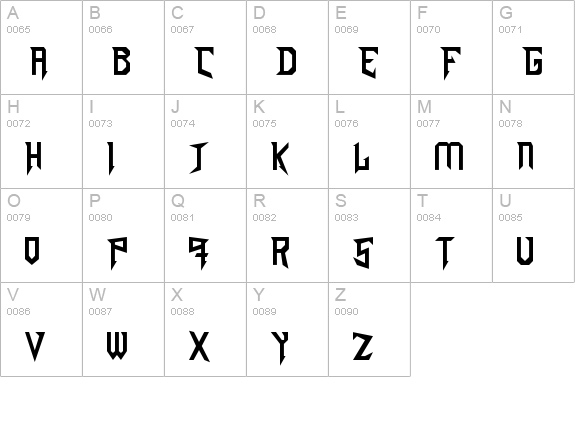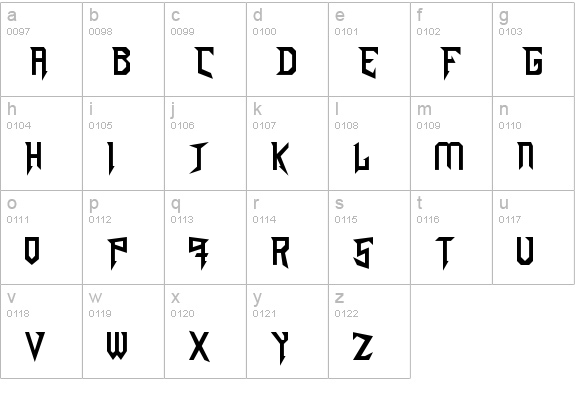
PowerDark Bold is a strong, high-contrast variant in the PowerDark typeface family \xE2\x80\x94 well suited to headlines, attention-grabbing titles, and strong calls-to-action.
Introducing PowerDark Bold, the epitome of sophistication and power in the world of typography. This bold and commanding font exudes confidence and captivates attention with its striking presence. Designed with meticulous attention to detail, every curve and contour of PowerDark Bold is carefully crafted to convey a sense of strength and authority. With its clean lines and pronounced strokes, this font commands attention and demands to be seen. Its bold and impactful appearance makes it perfect for headlines, titles, and any design project that requires a strong and impactful visual statement. Whether you're designing a poster, logo, or website, PowerDark Bold will effortlessly elevate your work to new heights. But what sets PowerDark Bold apart from other fonts is not just its impressive design, but the fact that it is freely available to download at FontsMarket.com. Yes, you read that right - this exceptional font can be yours without spending a dime. FontsMarket.com provides a platform where you can explore a vast collection of premium fonts, and PowerDark Bold is just one of the many gems waiting to be discovered. So why wait? Embrace the power of PowerDark Bold and make a bold statement with your designs. Download this exceptional font for free at FontsMarket.com and experience the thrill of unleashing its commanding presence in your creative projects. Let PowerDark Bold be the driving force behind your next design masterpiece.